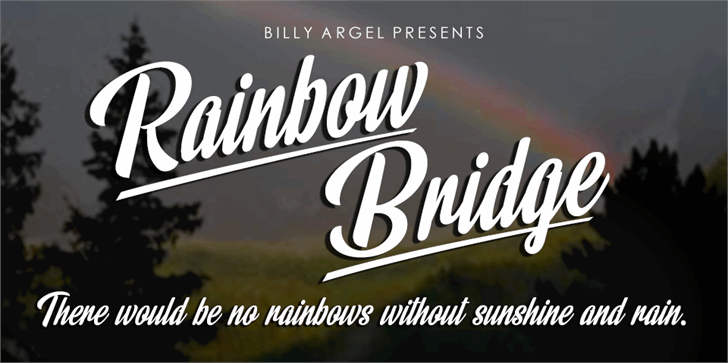
Download and enjoy this free rainbow bridge font. Cool typeface to showcase your designs in a modern way. This typeface file was found from the amazing source called Font Space. This is absolutely beautiful font so you can easily make world-class designs.